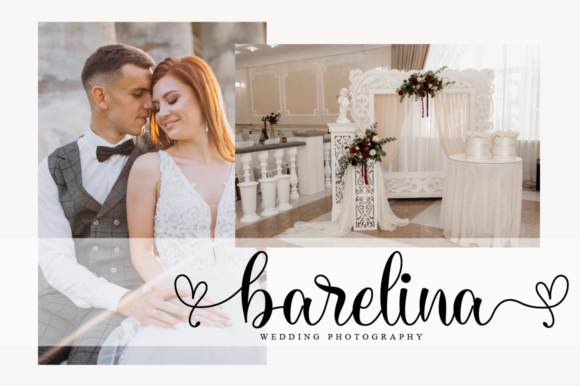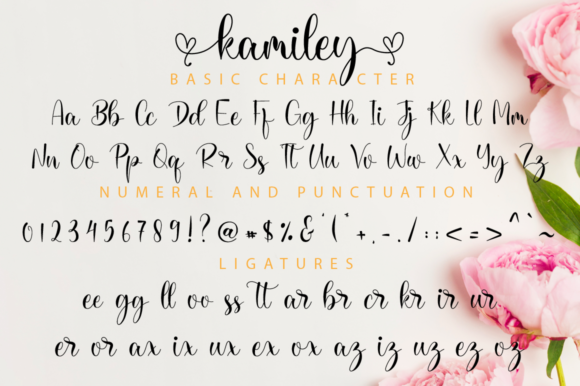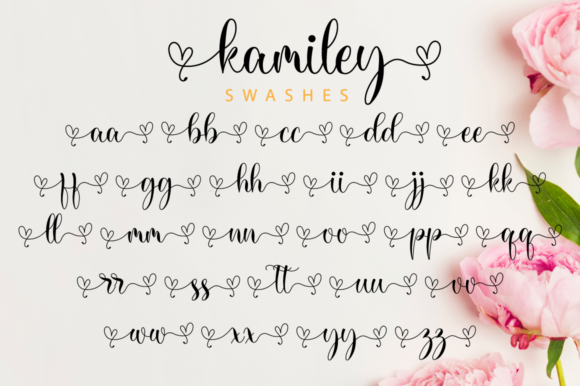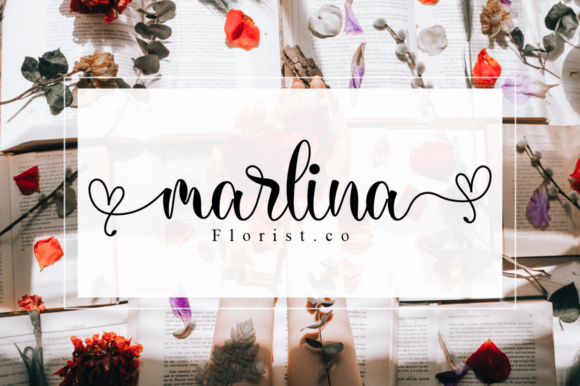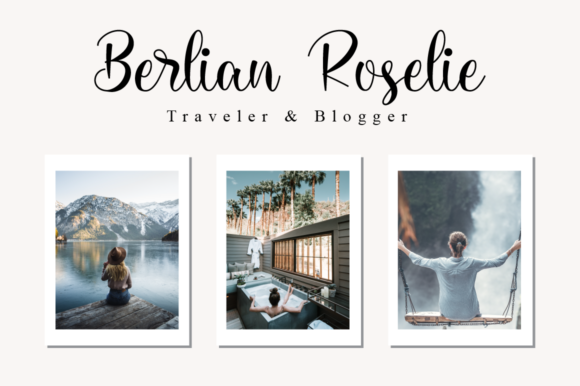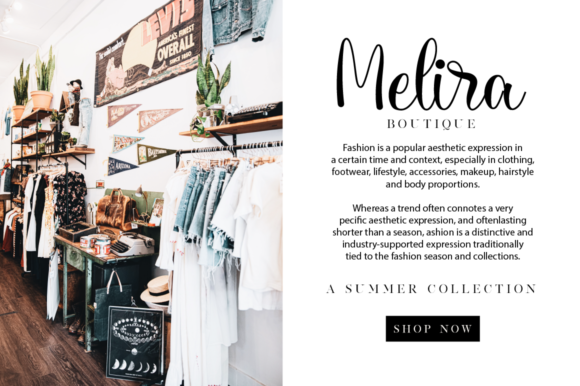
Kamiley Font
About Kamiley Font
Kamiley is an exquisite handwritten font. It features romantic heart-themed characters that will add a special touch to your designs! It is the perfect font for your Valentine’s designs.